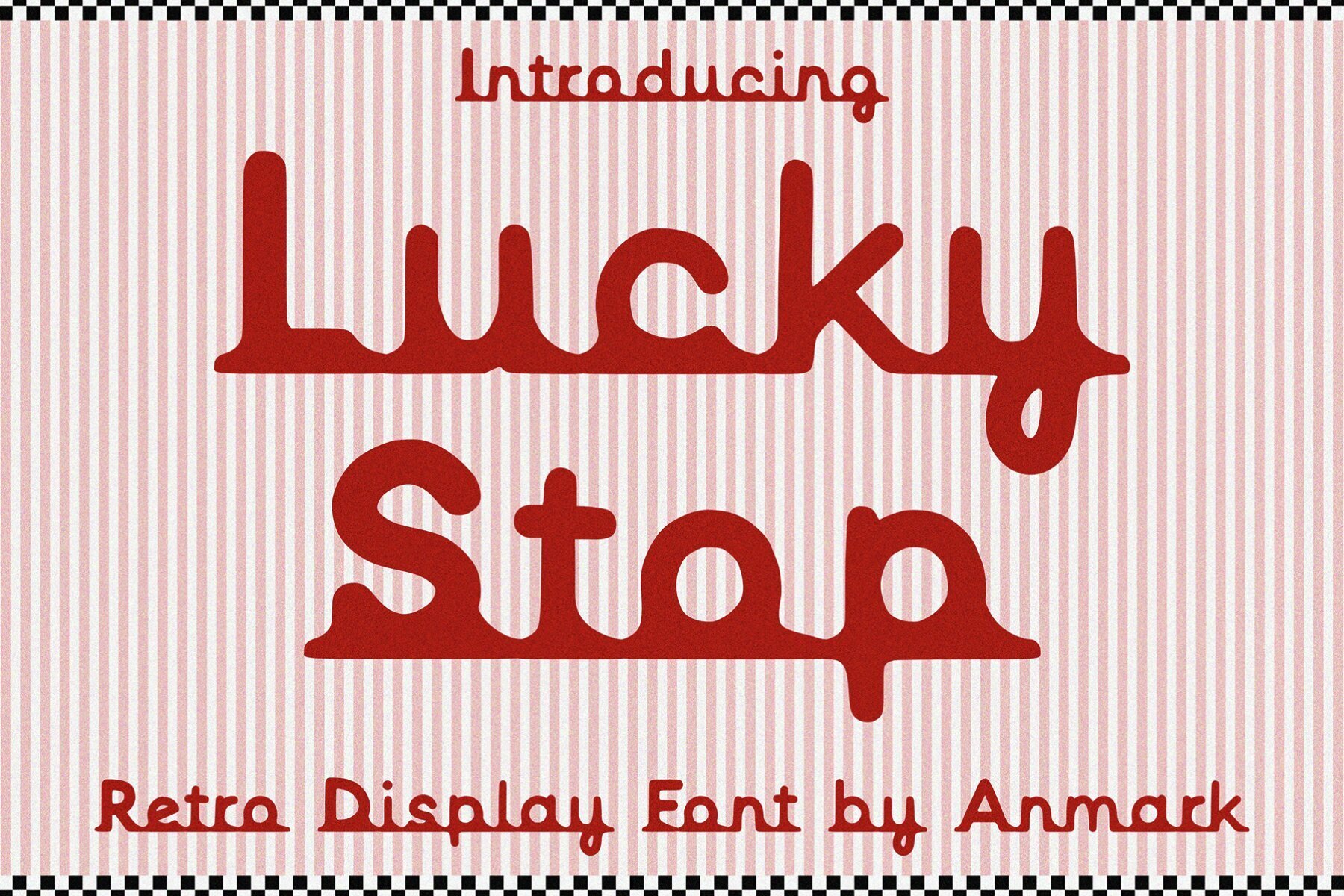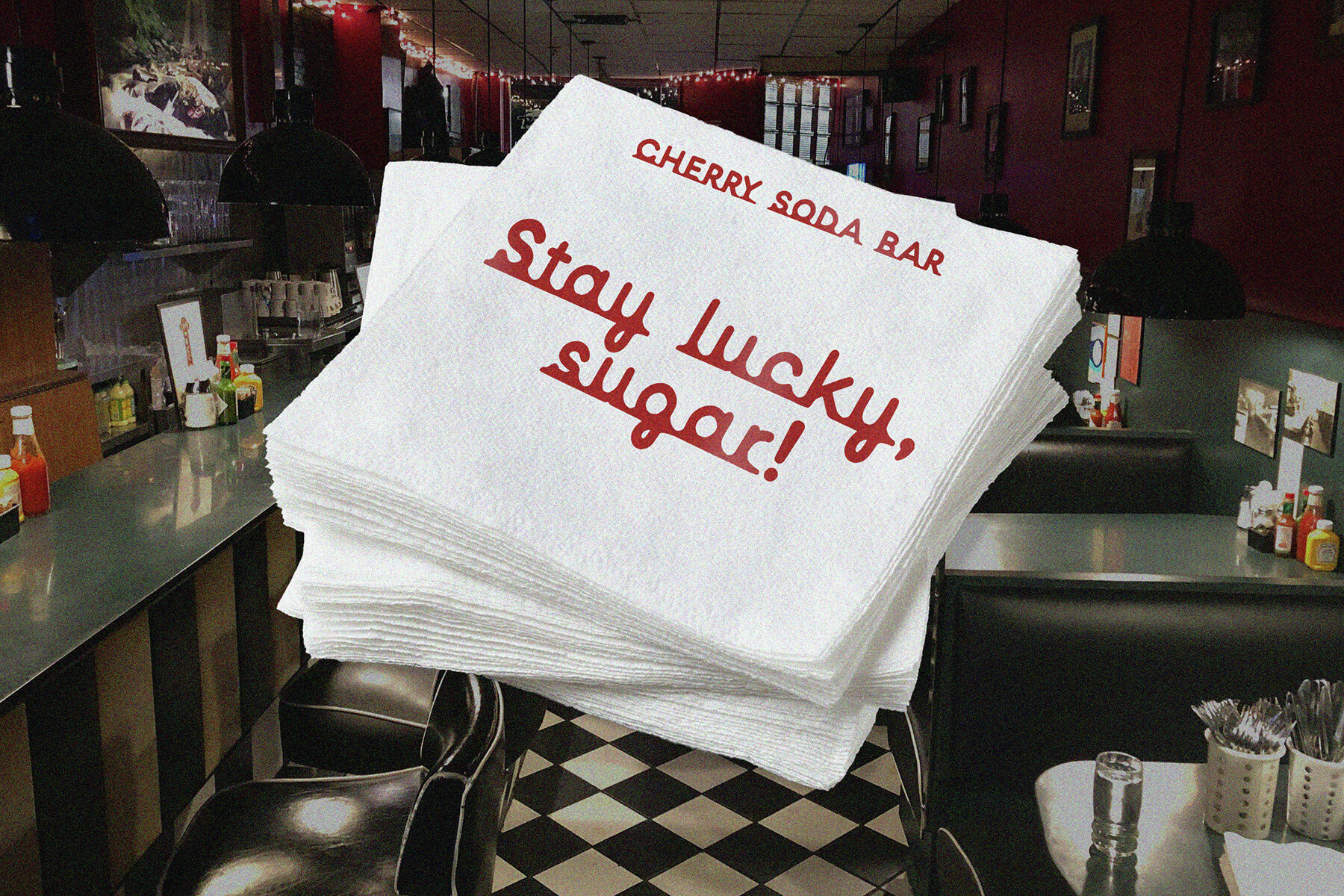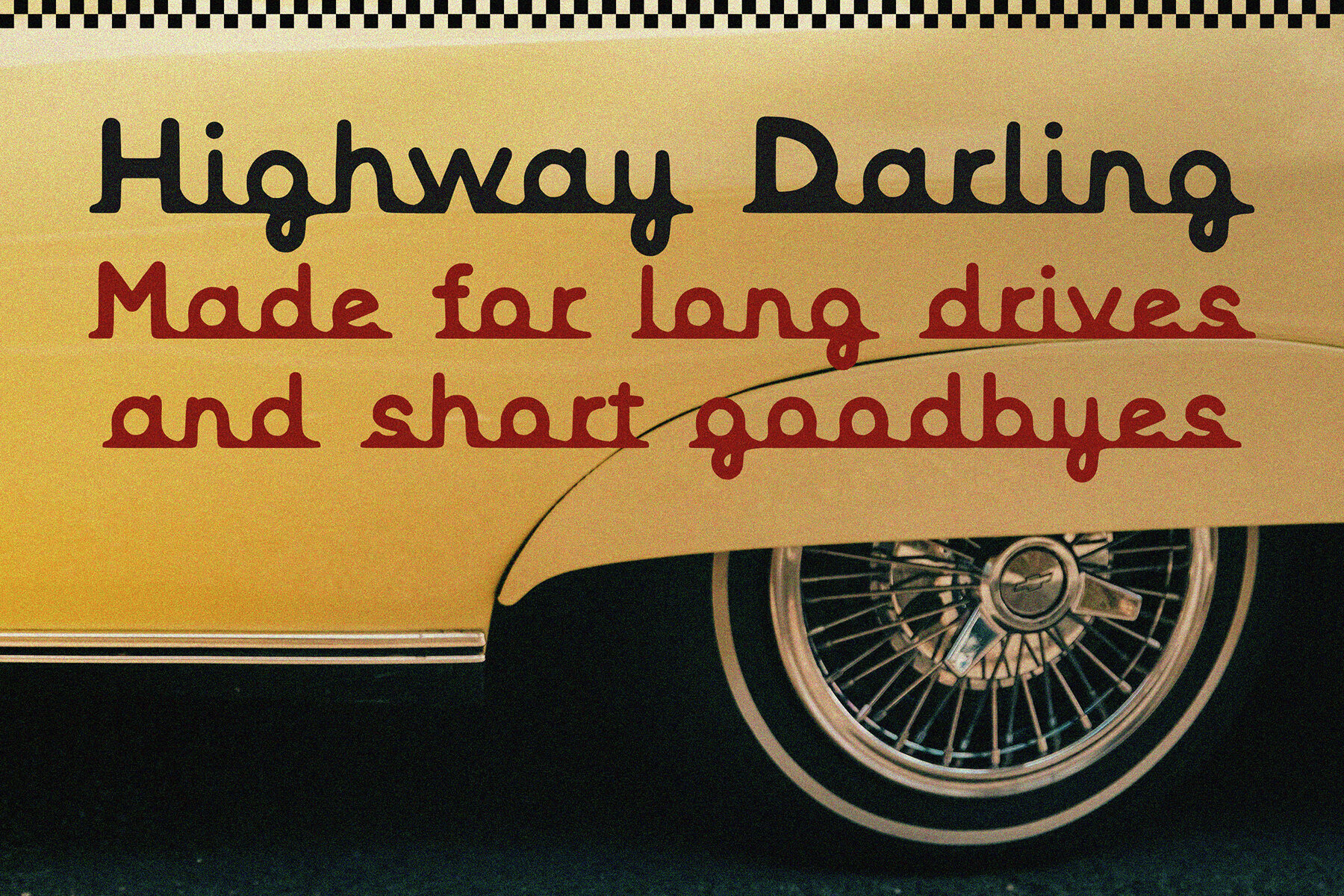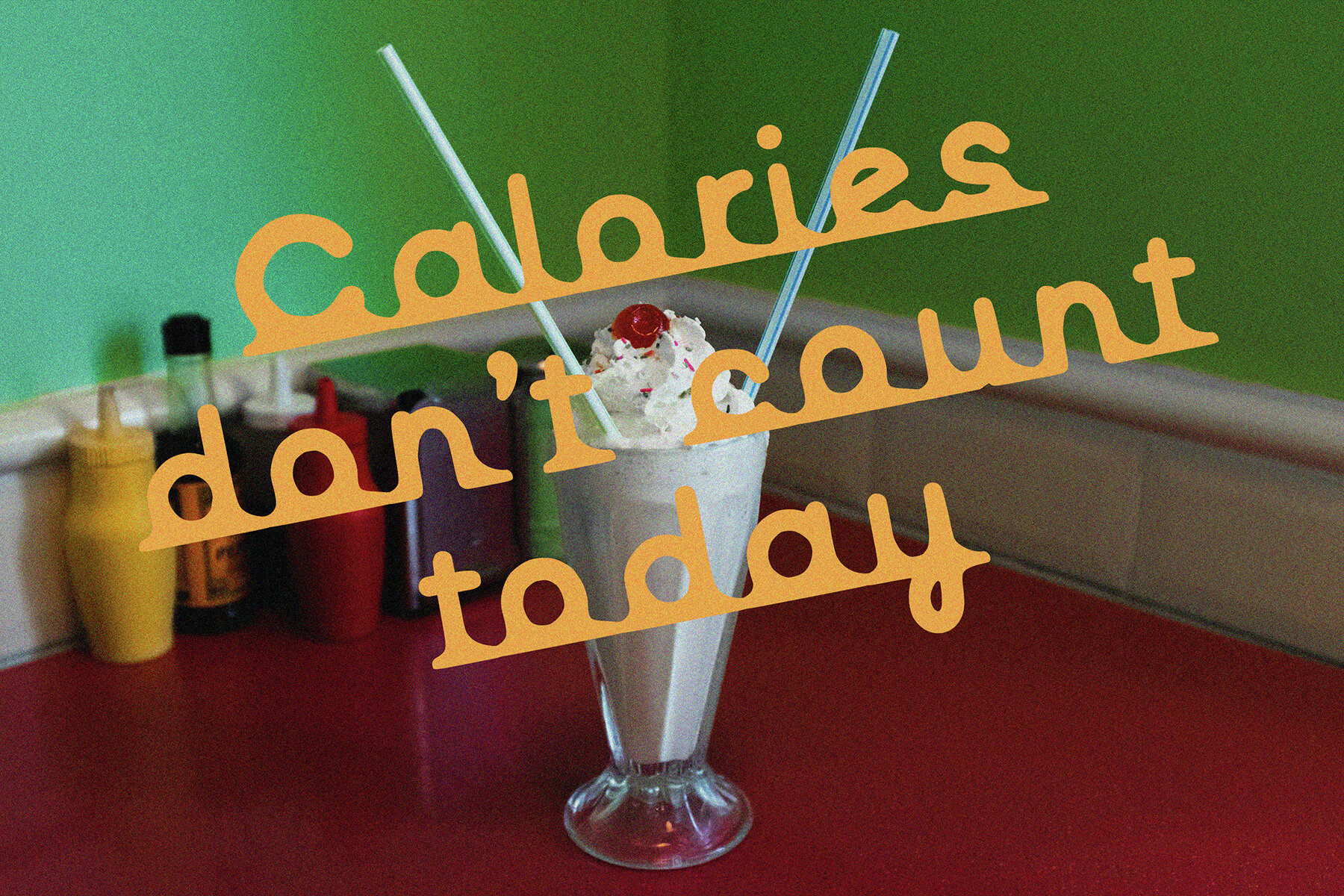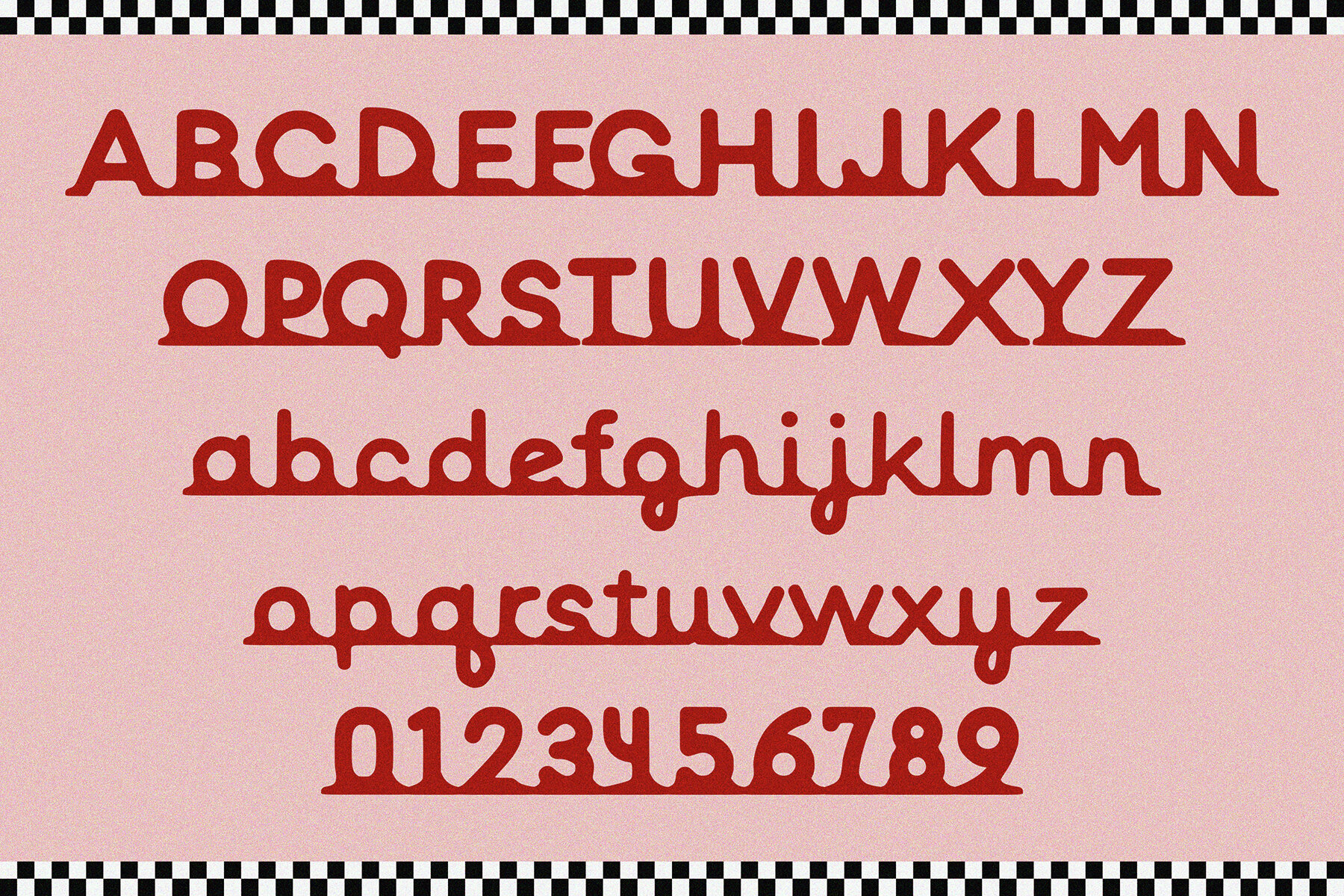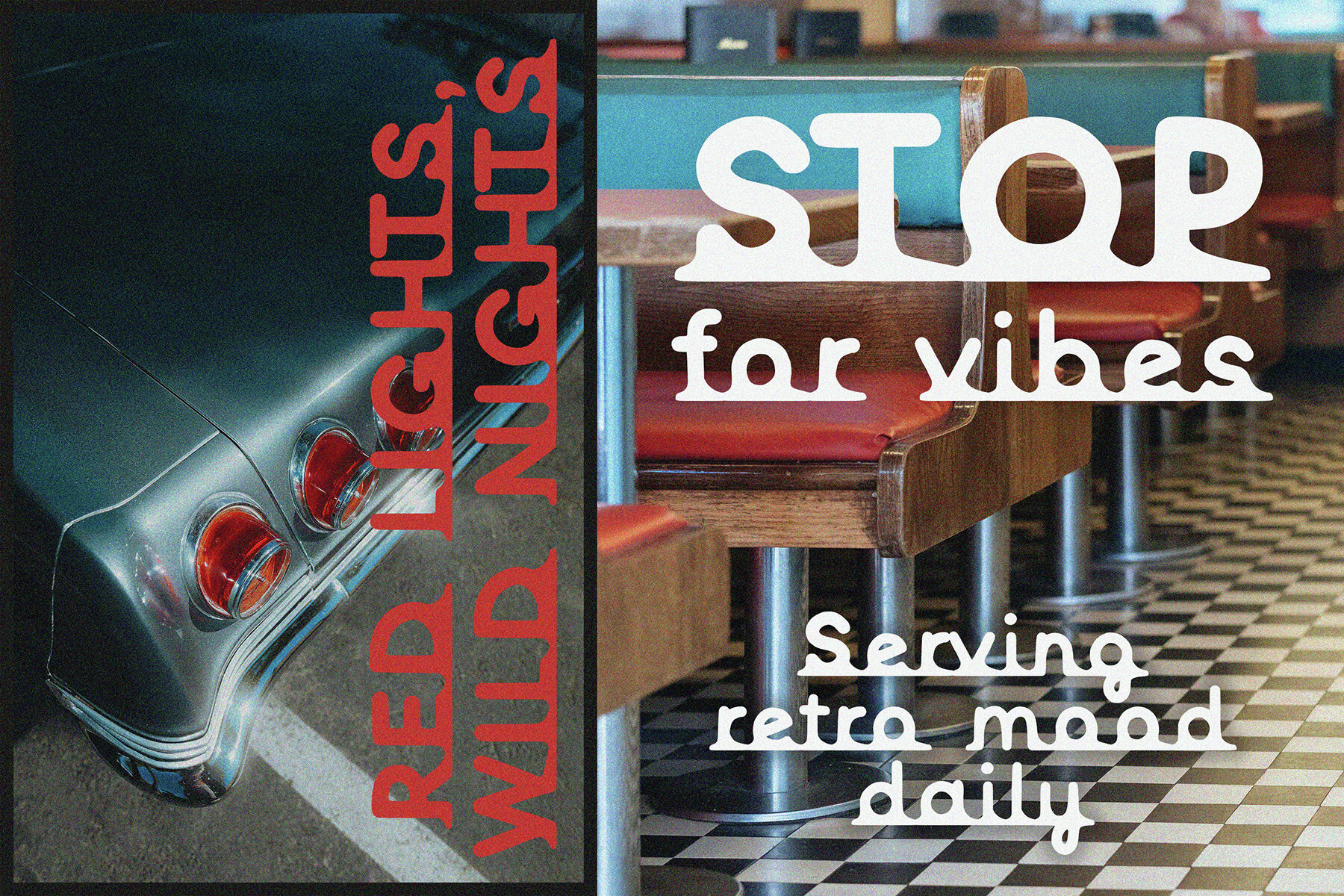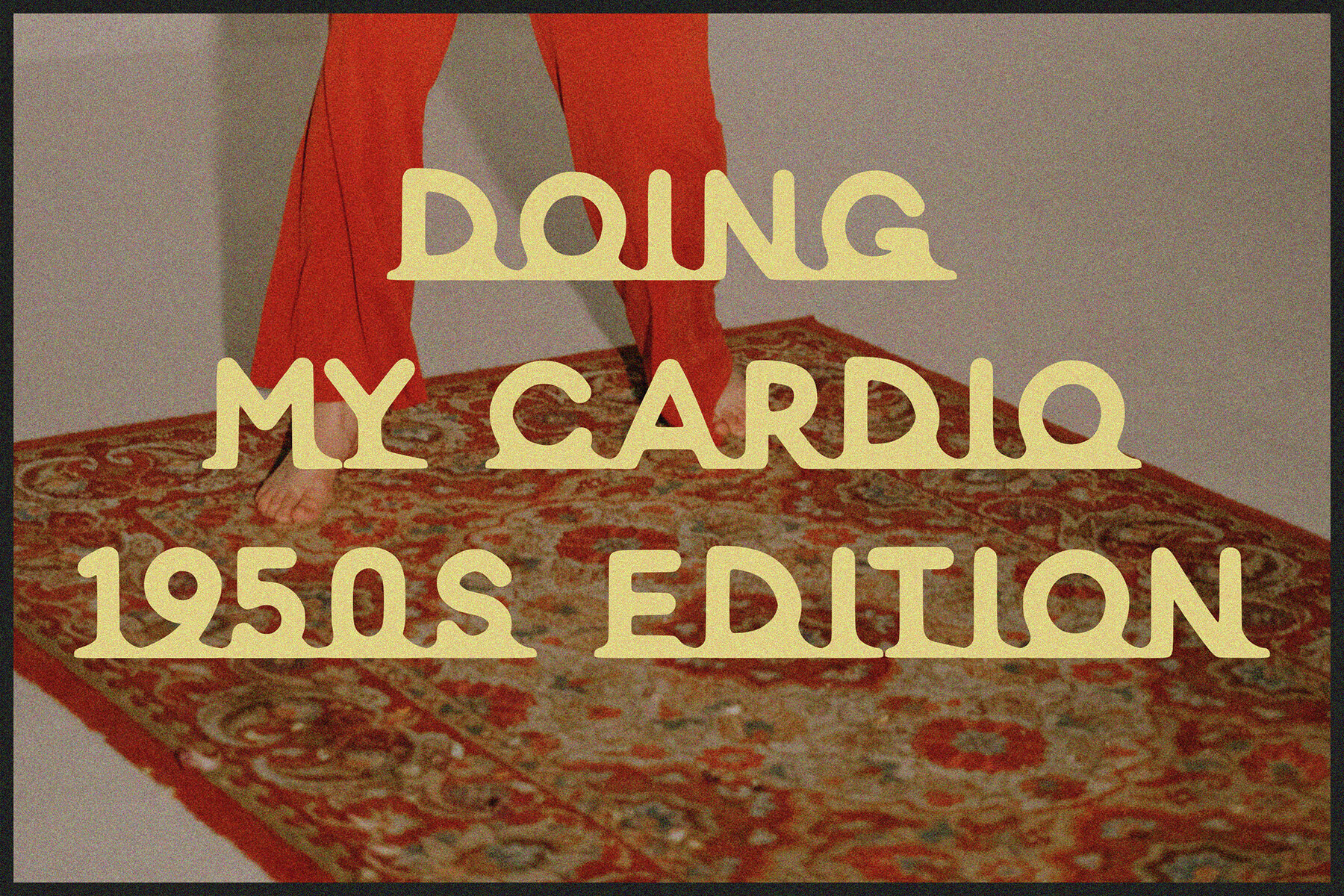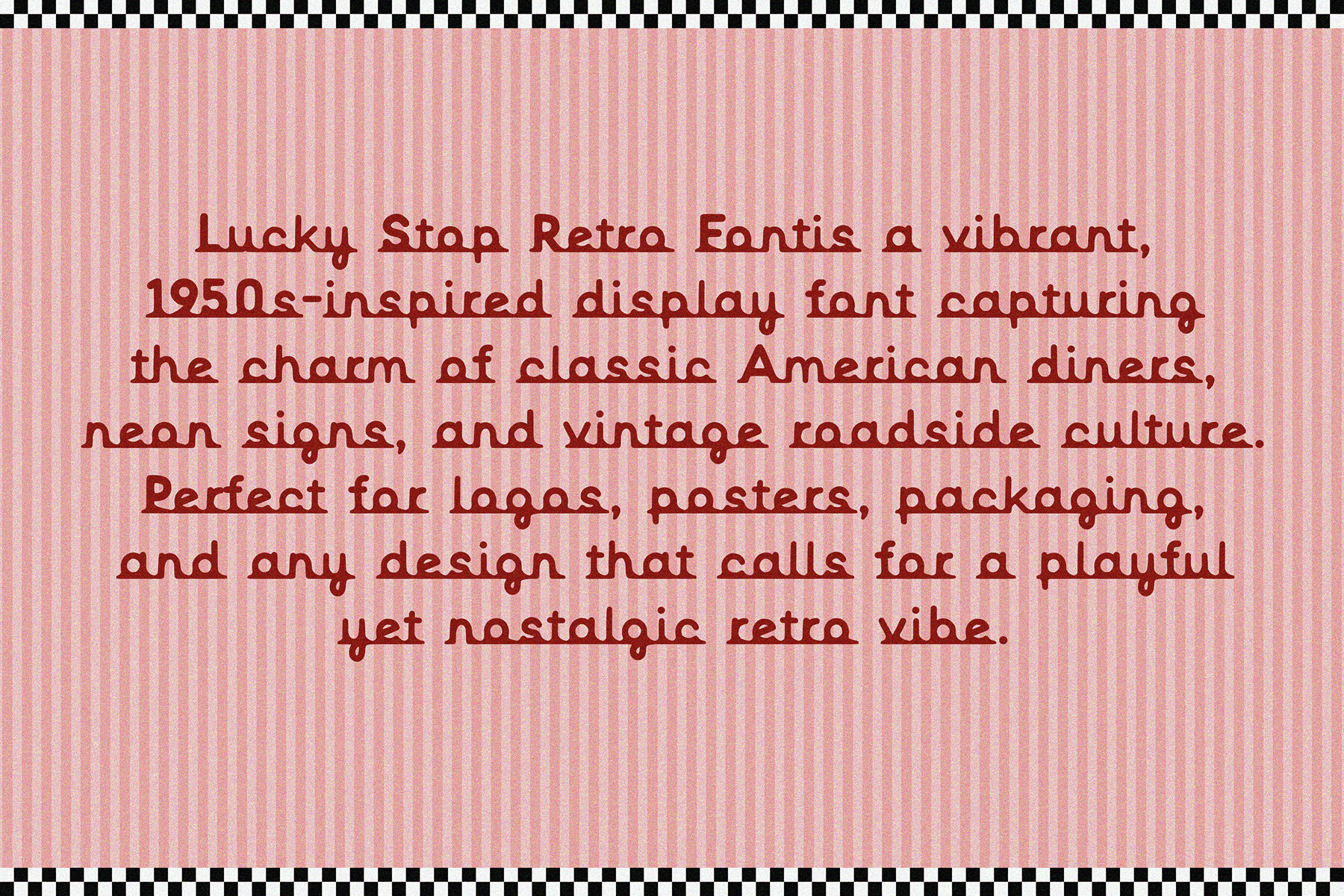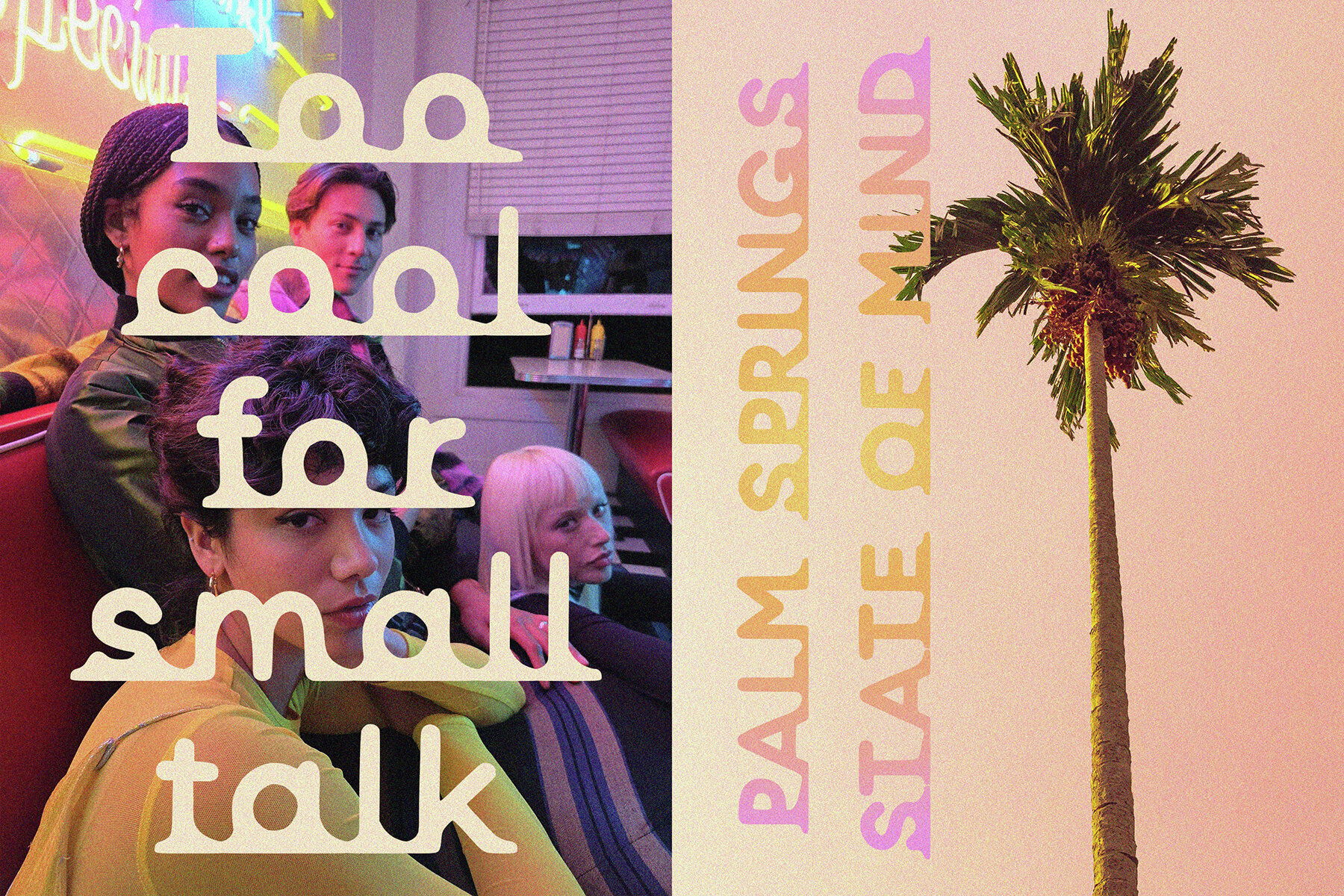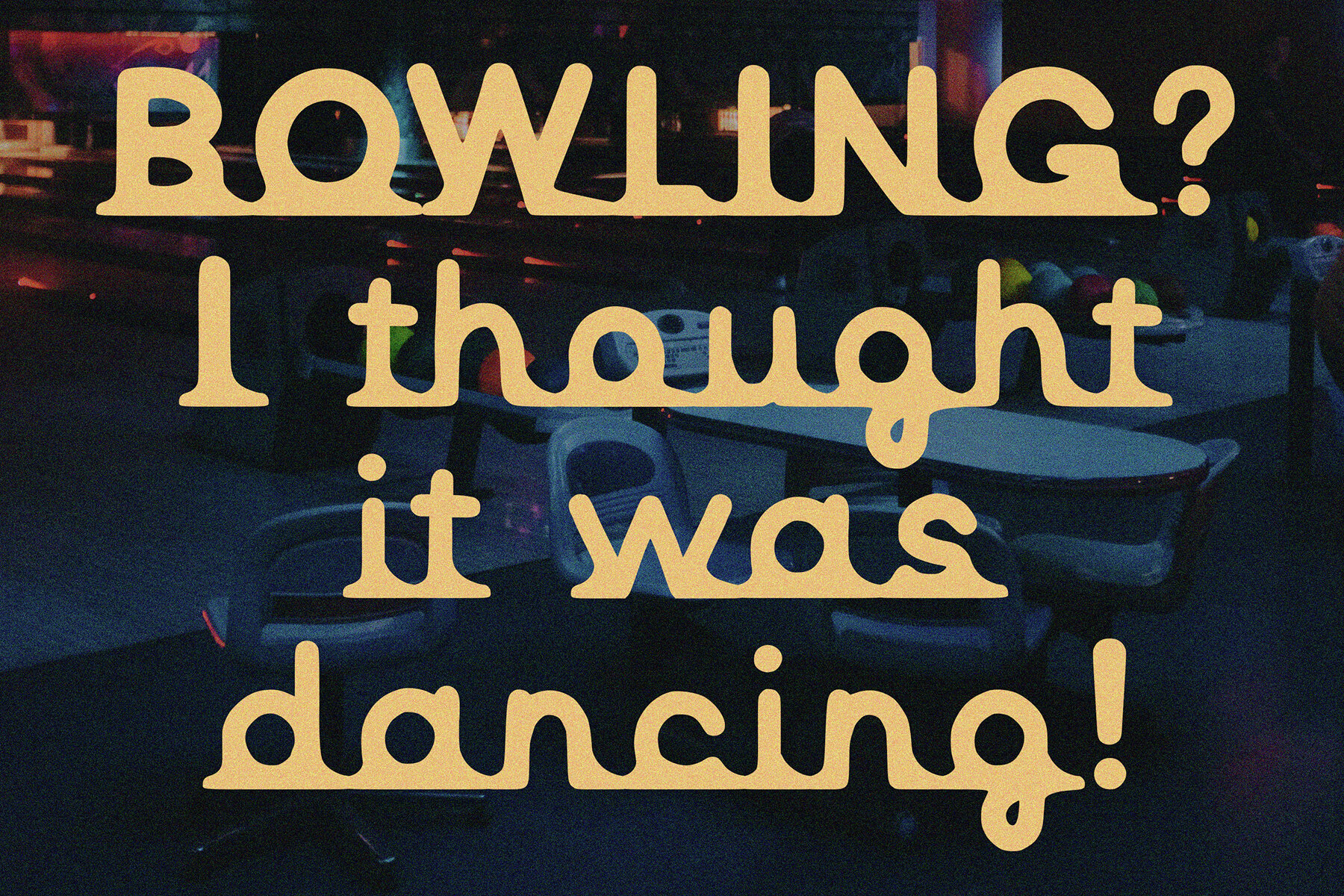
Lucky Stop Font
Lucky Stop
Lucky Stop is a 1950s-inspired display font that channels the lively spirit of classic American diners, neon lights, and vintage roadside memories. Its bold curves and distinct angles add playful character to your projects, infusing designs with the unmistakable charm of mid-century Americana. Whether you're developing a logo, poster, or product packaging, Lucky Stop delivers strong visual impact and a memorable nostalgic touch.Lucky Stop Retro Display Font